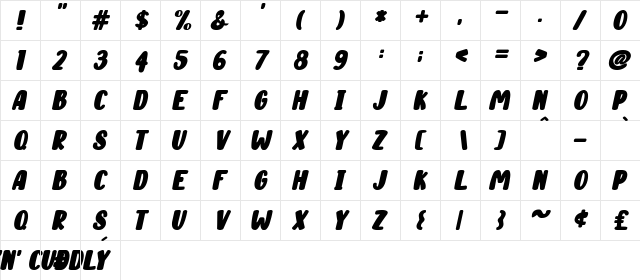
Cute 'n' Cuddly Italic
Design Context for Cute 'n' Cuddly Typeface
Cute 'n' Cuddly offers clean, dependable letterforms without strong stylistic allegiance, making it a practical choice for designers who need flexibility. Its italic angle brings a sense of urgency and motion to the letterforms.
Pro Tip: Try Cute 'n' Cuddly for annotation and caption copy alongside an upright companion — the contrast in angle creates a dynamic but ordered typographic system.